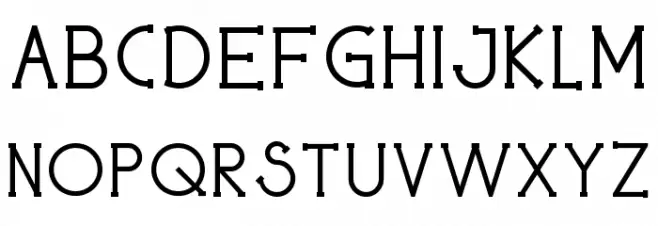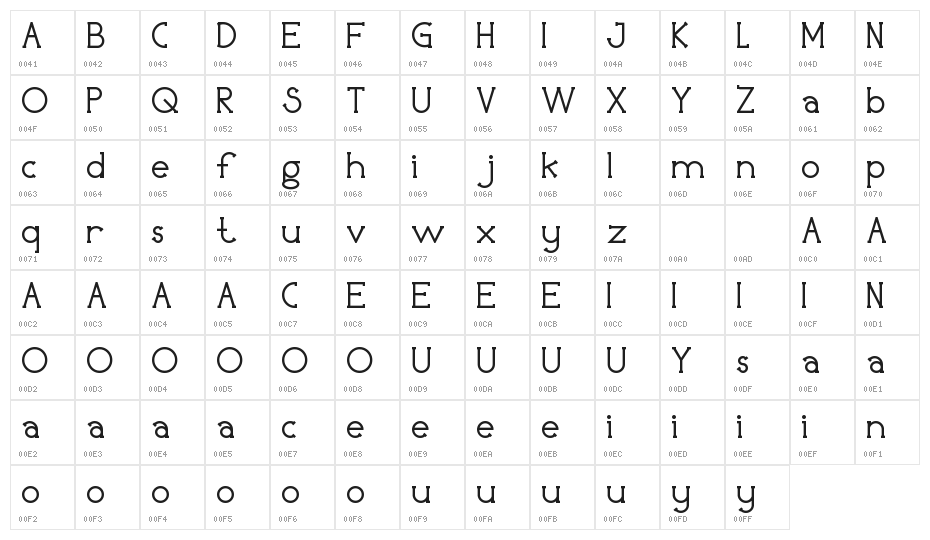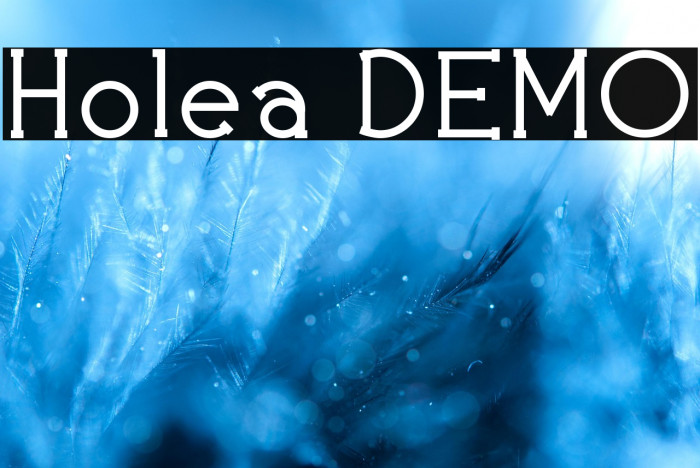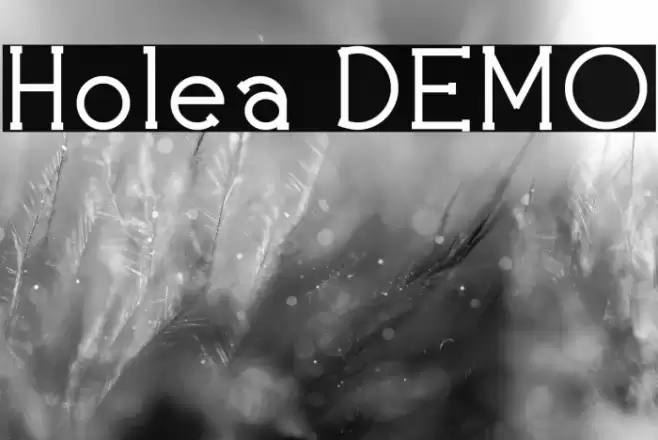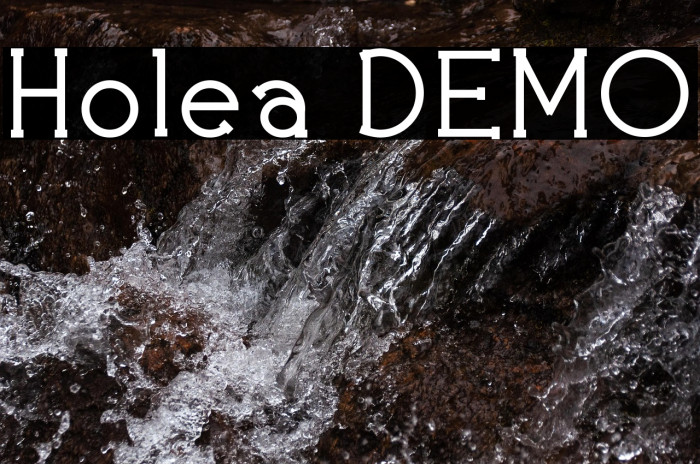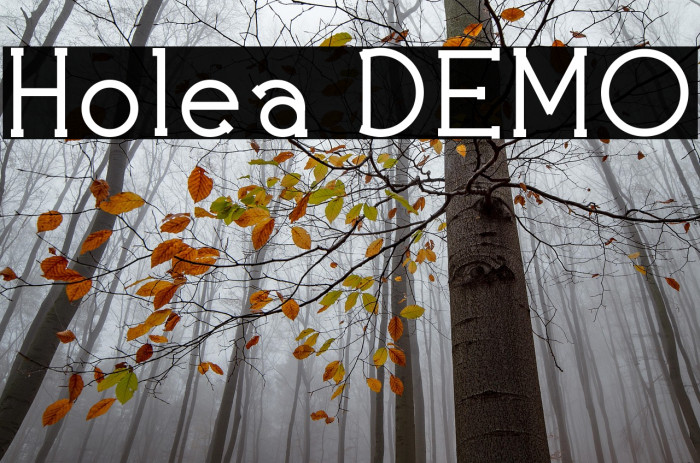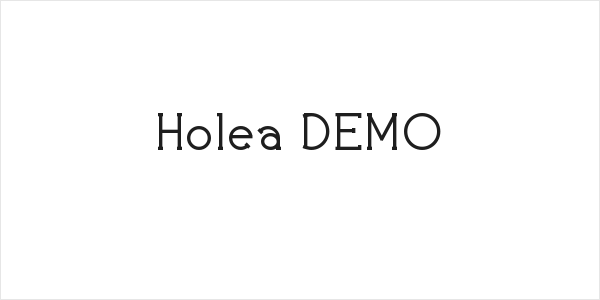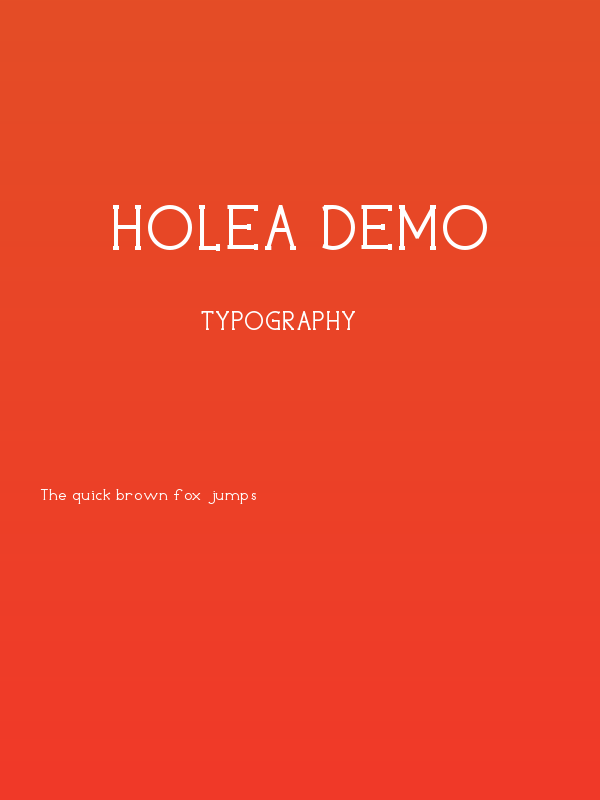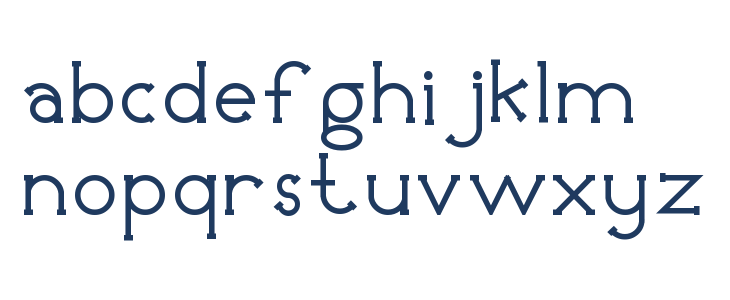
Holea DEMO Font
Holea DEMO Description
This font features a unique blend of geometric and classic elements, characterized by its clean lines and rounded edges. The uppercase letters exhibit a uniform height with a slight flair at the terminals, giving them a distinctive yet approachable appearance. The lowercase letters maintain a consistent x-height, with some characters like 'g' and 'y' having playful loops that add a touch of elegance. The numerals are clear and legible, matching the overall style of the alphabet. Special characters are well-integrated, maintaining the font's cohesive look. This font's balance between modernity and tradition makes it versatile for various design applications.